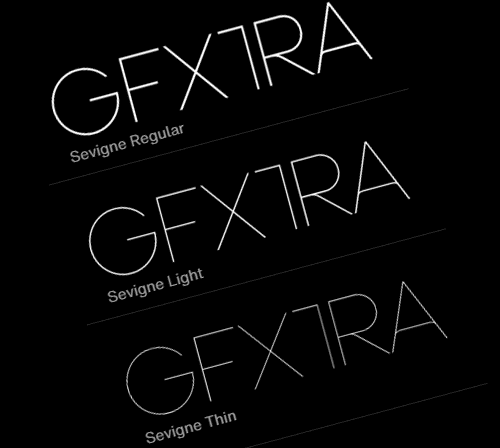
- Sevigne [sey-vee-nyey] is a highly refined, contemporary geometric sans, inspired by the ambience of high-end fashion and luxury. The inclusion of over 130 unique ligatures expand its sensibility of alluring, well-balanced letterforms and distinctive style. Stylistically, as an all-caps typeface, Sevigne exudes a greater sense of harmony and polish due to its unicase form where the interplay of a limited amount of characters is the focus. Subtle, considered details are found within individual letters, contrasted by the complex, intersecting forms that make up the various ligatures. With multiple stylistic sets added to the expanded ligatures, individual letters and ligature pairs can be carefully exchanged to fine-tune text settings for a unique custom type solution.